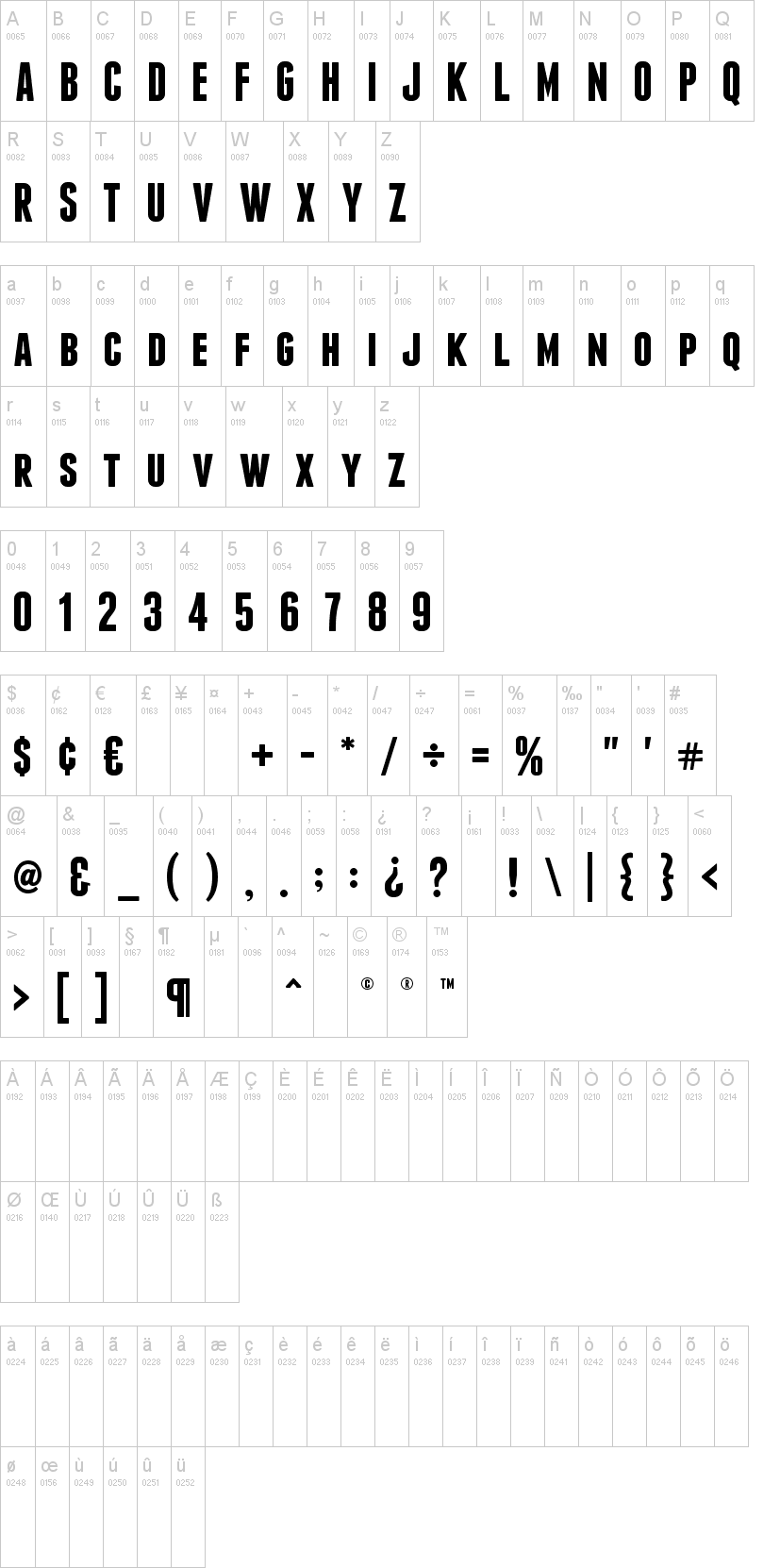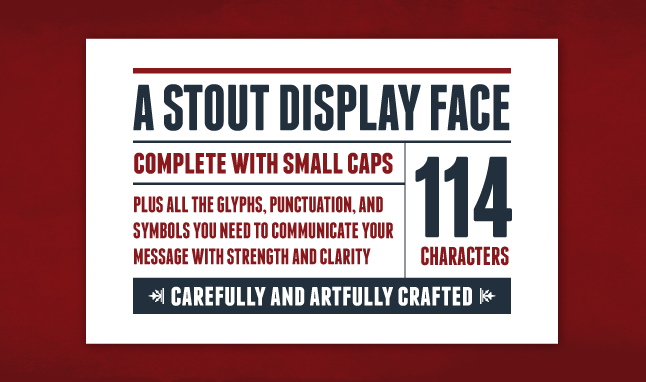
Шрифт Franchise
FRANCHISE is a powerful new display typeface meant to communicate your message quickly and with power. The characters were meticulously drawn to achieve a unifomity without compromising style. Franchise is just as much at home on the front of a donut shoppe as it is on the scoreboard at a football stadium.